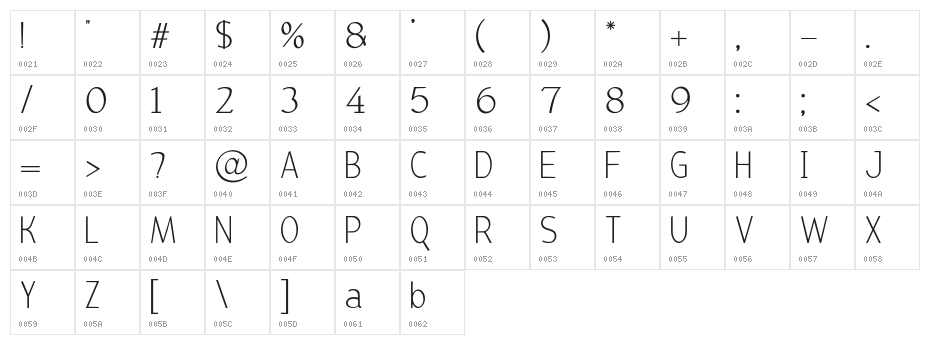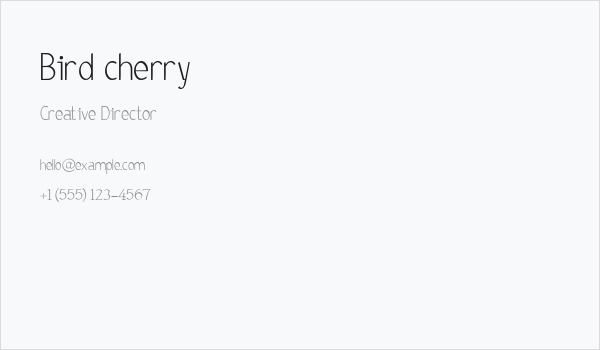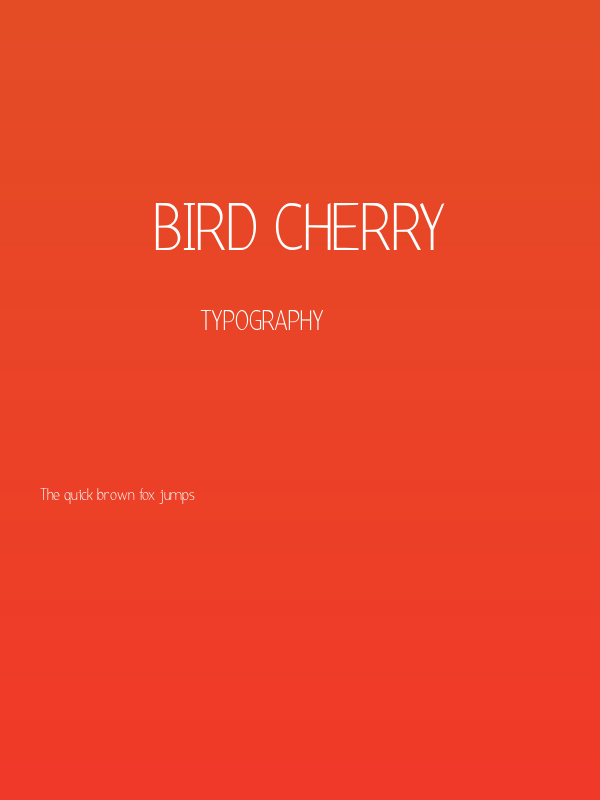
Bird cherry Font
Bird cherry Description
This font features a clean and modern sans-serif design with a geometric structure. The characters are evenly spaced, providing a balanced and harmonious appearance. The uppercase letters are tall and slightly narrow, while the lowercase letters maintain a consistent height, contributing to a uniform look. The numerals are clear and legible, matching the style of the alphabetic characters. Special characters are included, maintaining the same sleek and contemporary aesthetic. The overall design is minimalistic, making it versatile for various applications.
| Proposed Projects | Ideal for branding, web design, advertising, and editorial projects where a modern and clean look is desired. |